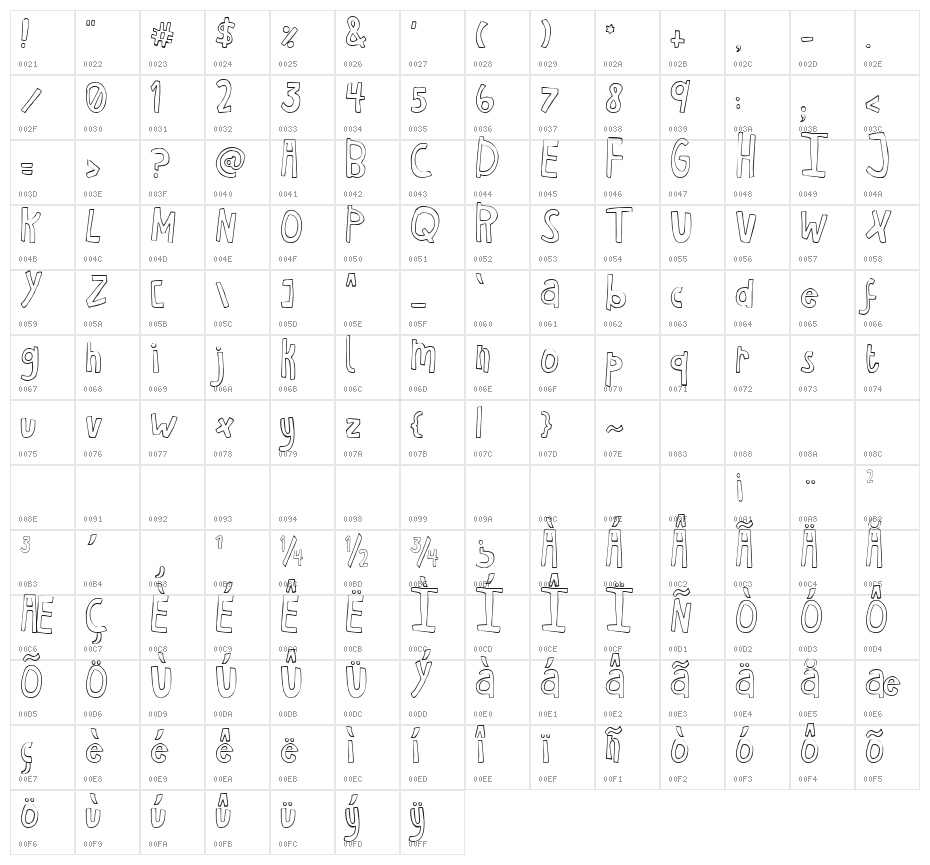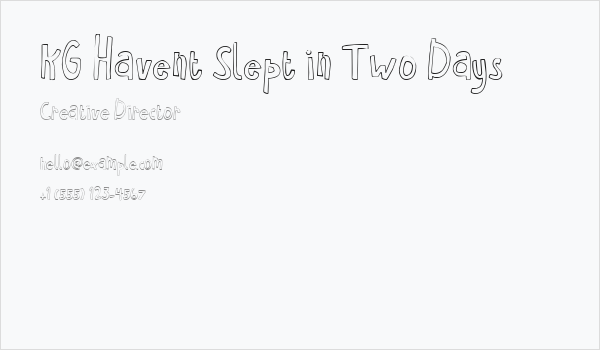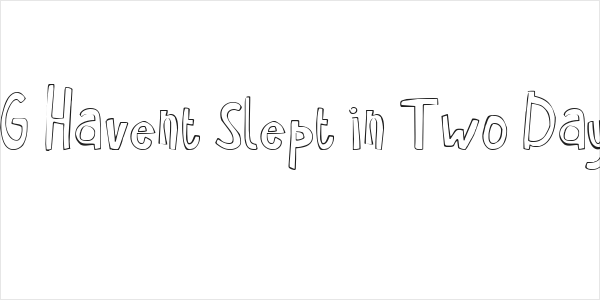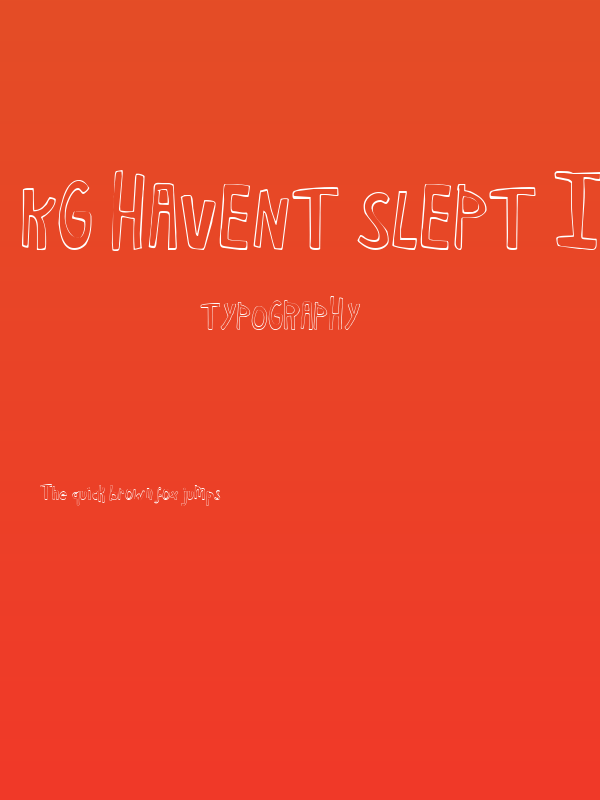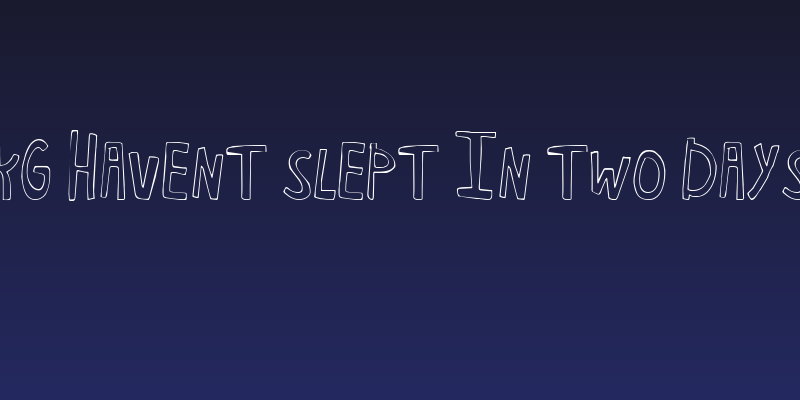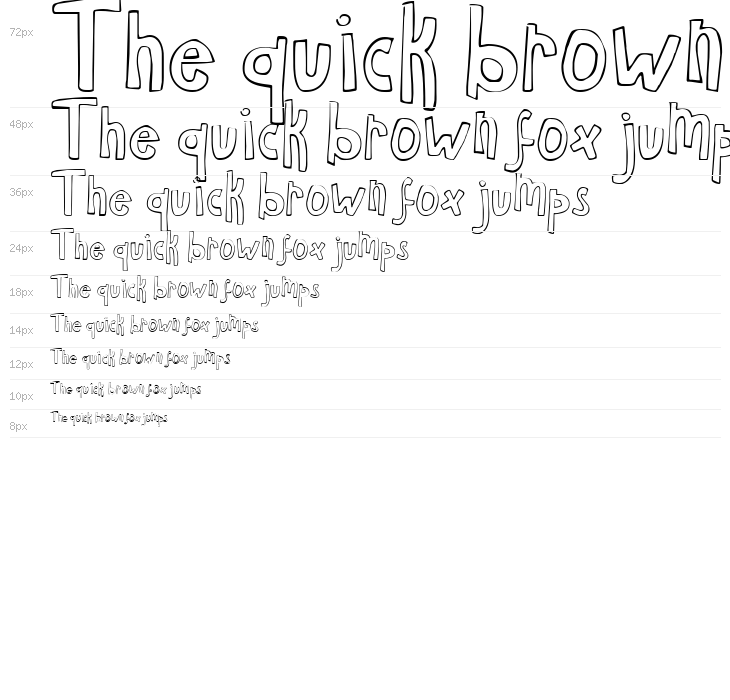
KG Havent Slept in Two Days Font
KG Havent Slept in Two Days Description
This playful and quirky font features a hand-drawn, doodle-like style that exudes a sense of fun and creativity. Each character is uniquely crafted with uneven lines and varying thickness, giving it a casual and informal appearance. The uppercase and lowercase letters maintain a consistent whimsical style, while the numbers and special characters complement the overall design. The font's irregular shapes and playful curves make it ideal for projects that require a touch of personality and charm.
Use CaseHeadlines, Logos, Creative projects
Proposed ProjectsIdeal for children's books, playful invitations, comic strips, and creative posters.